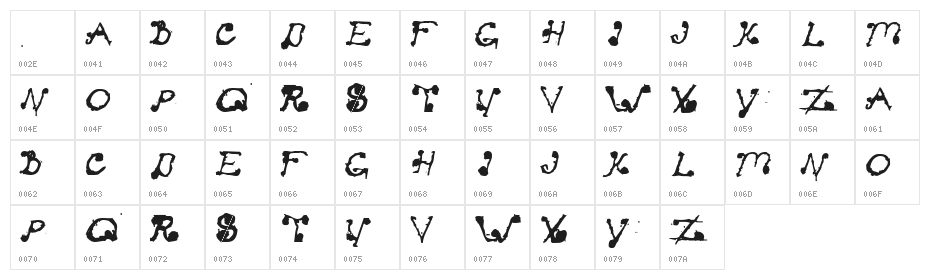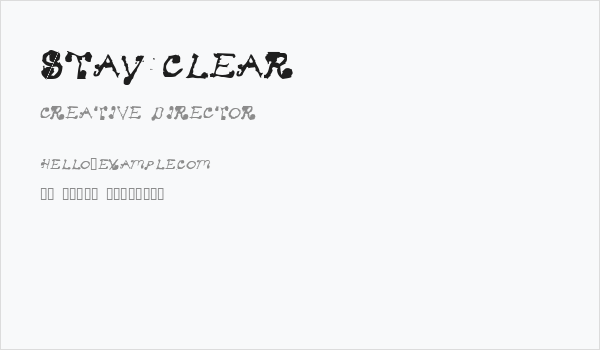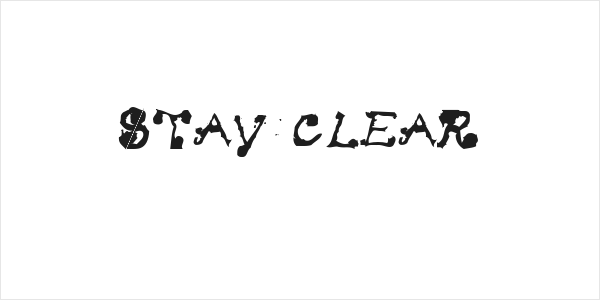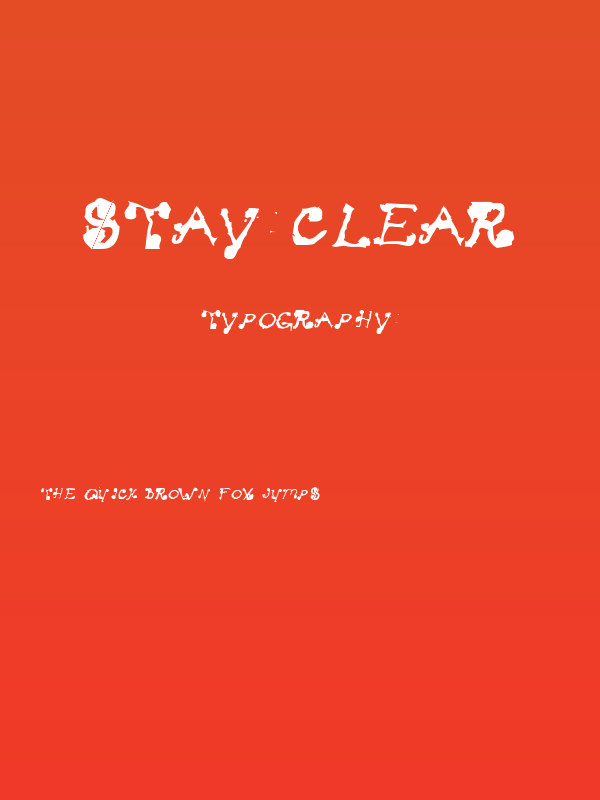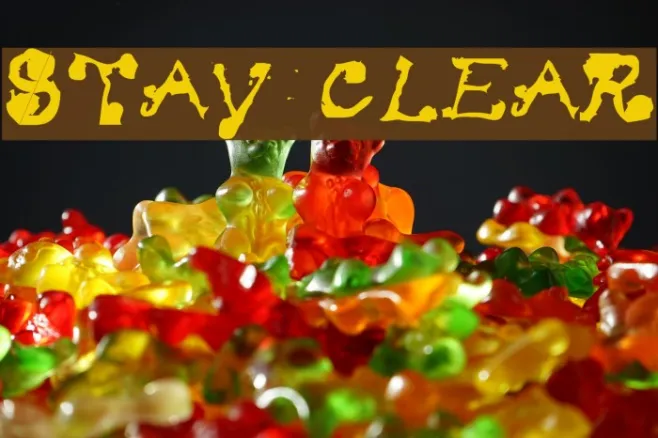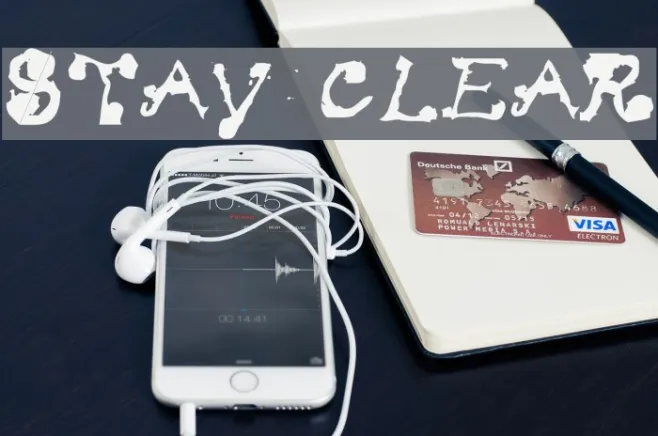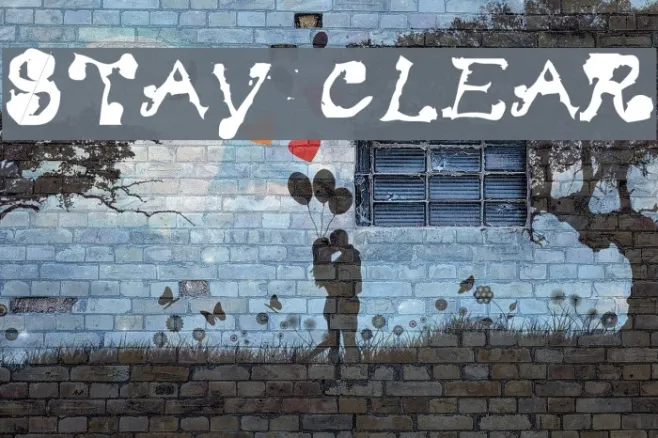
Stay Clear Font
Stay Clear Description
This font features a highly decorative and distressed style, reminiscent of ink splatters or paint drips. The characters are bold and irregular, with varying stroke thicknesses that create a dynamic and chaotic appearance. The uppercase and lowercase letters maintain a consistent aesthetic, with exaggerated serifs and uneven edges that contribute to its unique look. The font lacks traditional uniformity, making it ideal for artistic and creative projects that require a bold statement. The absence of numbers and special characters suggests a focus on alphabetic expression.
| Proposed Projects | Ideal for album covers, horror-themed posters, graffiti art, and edgy branding materials. |